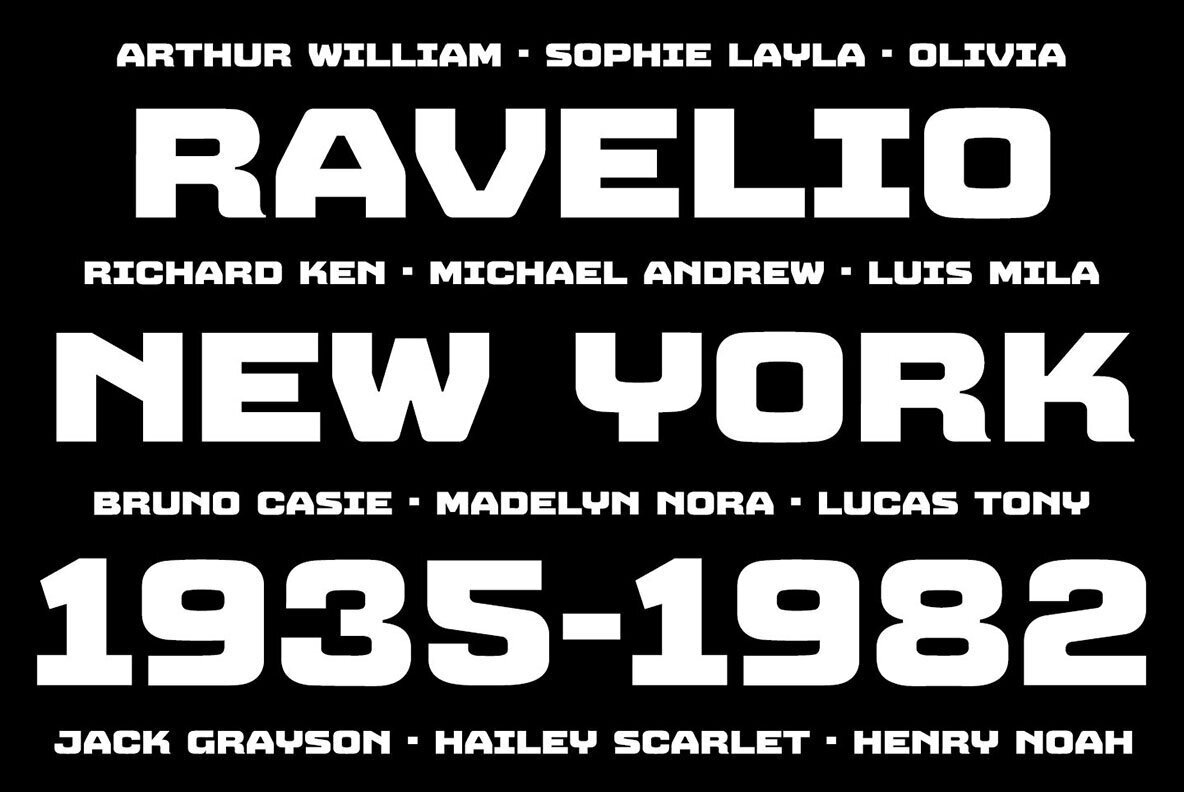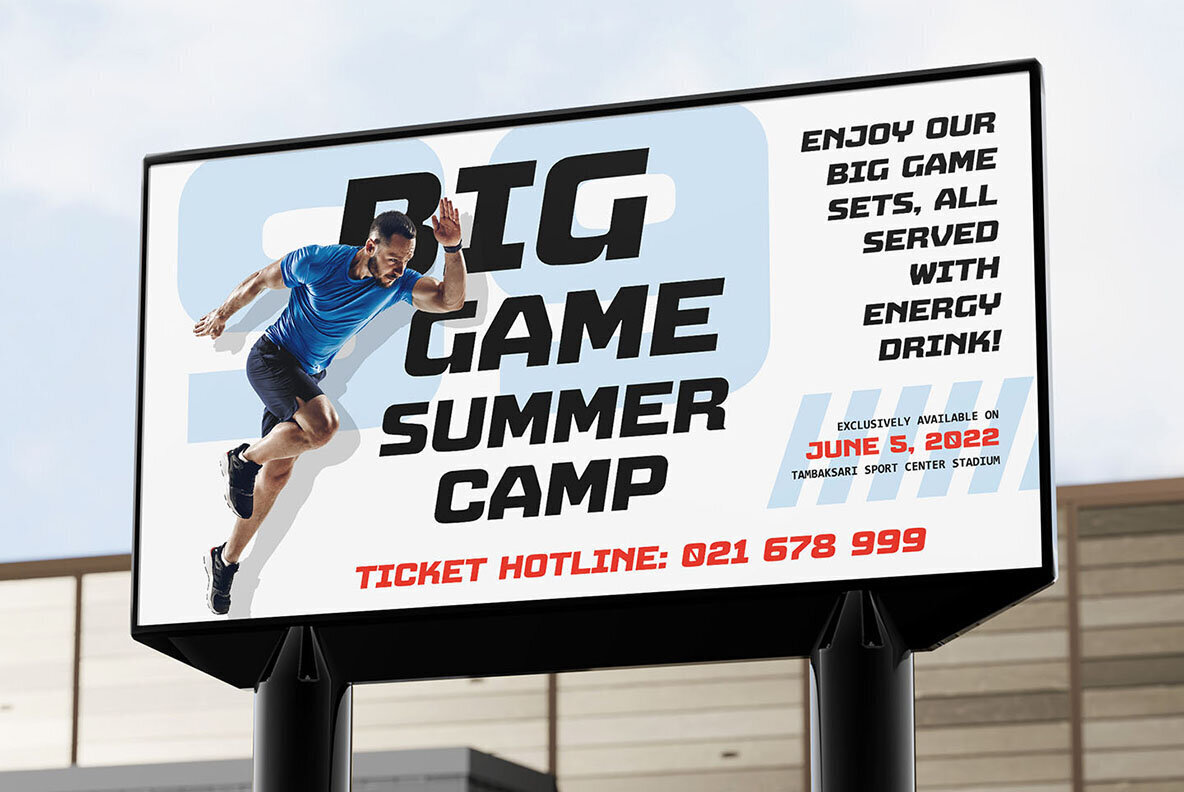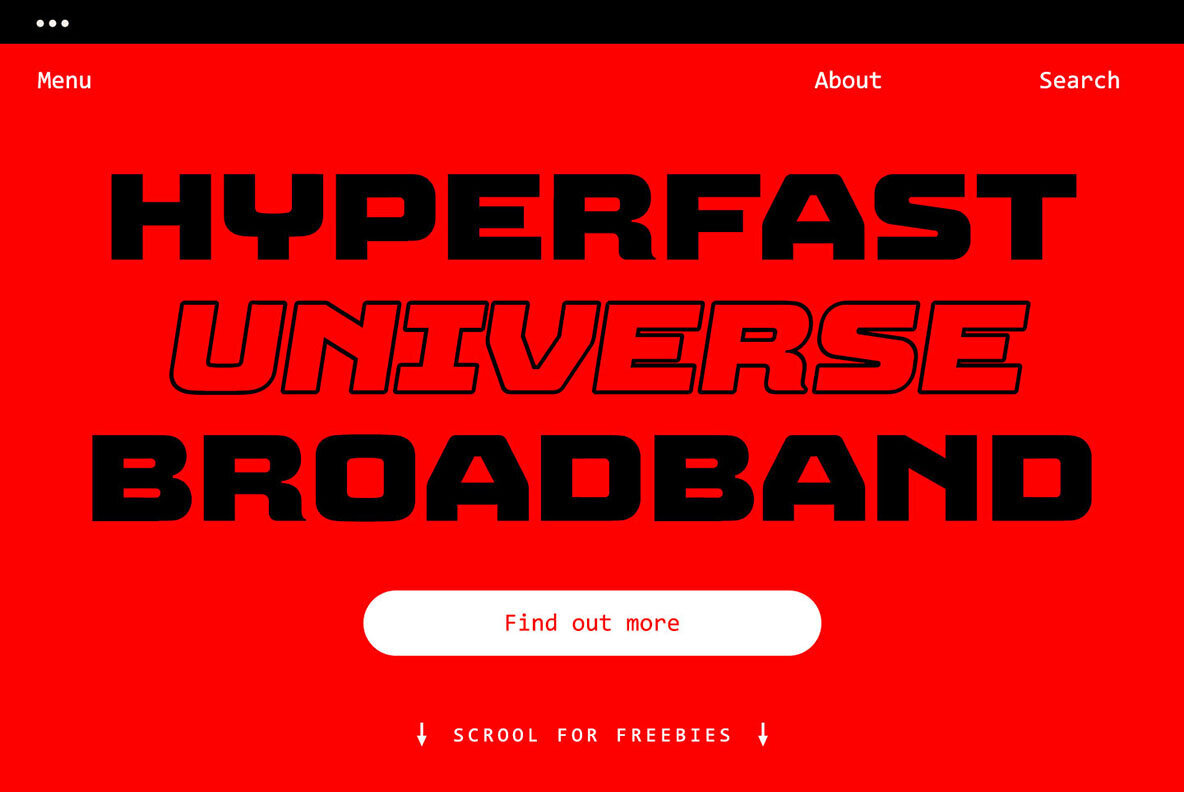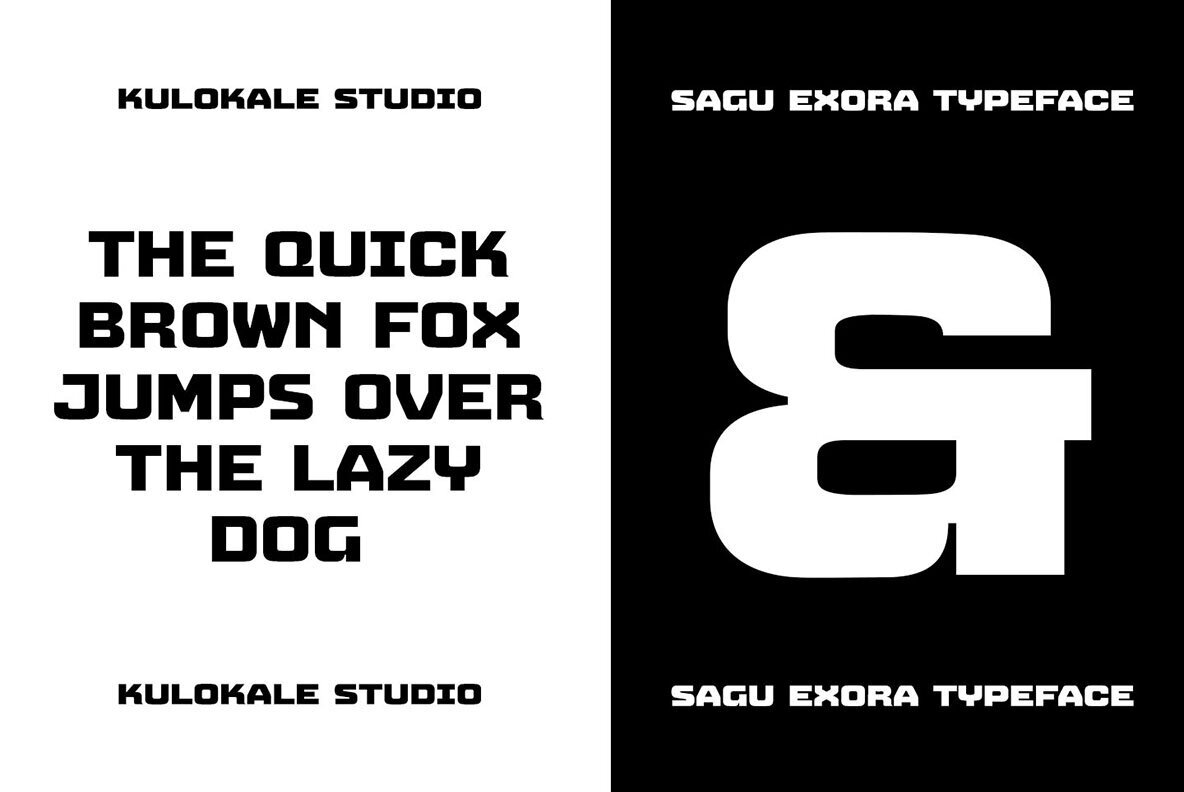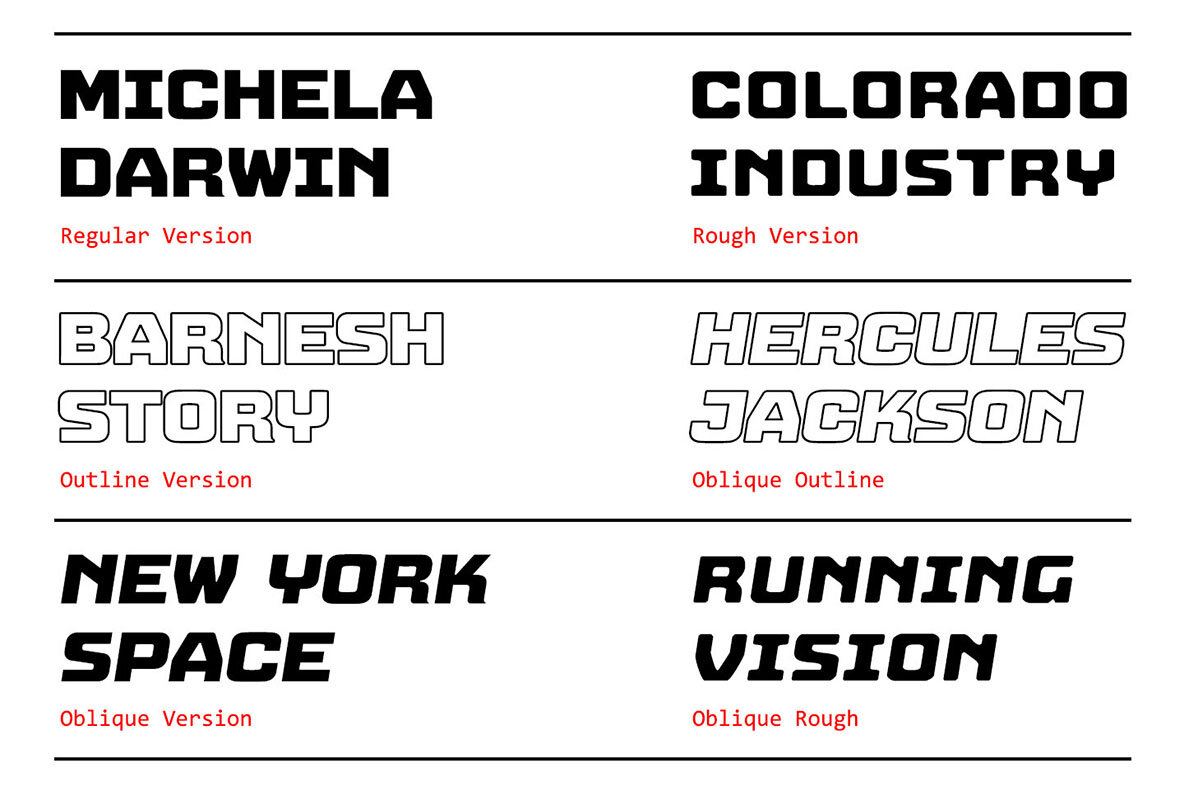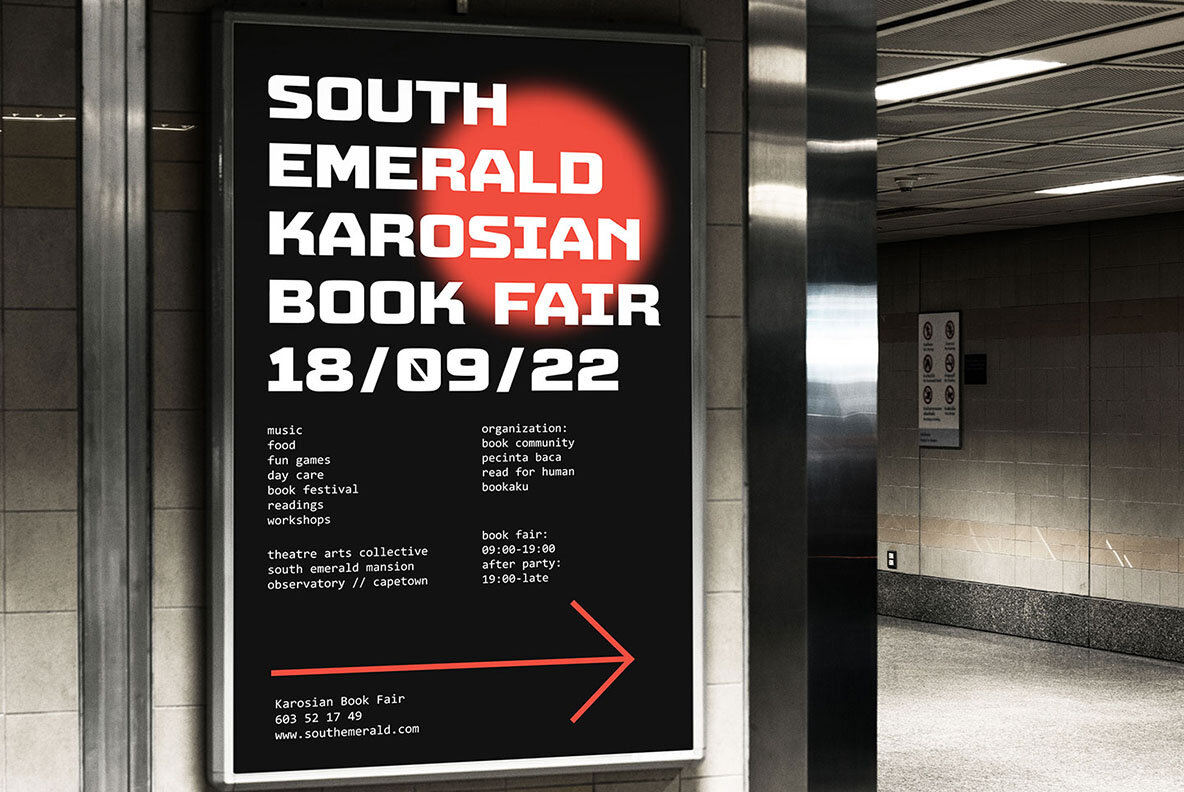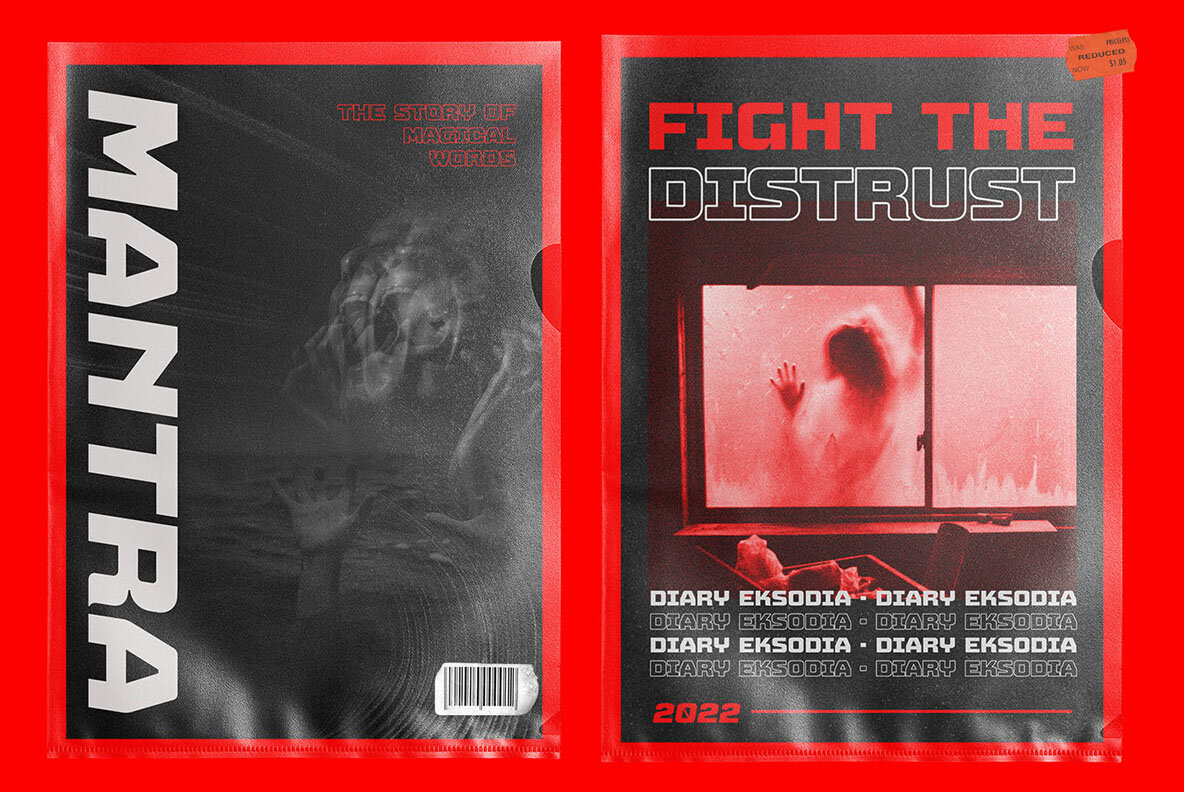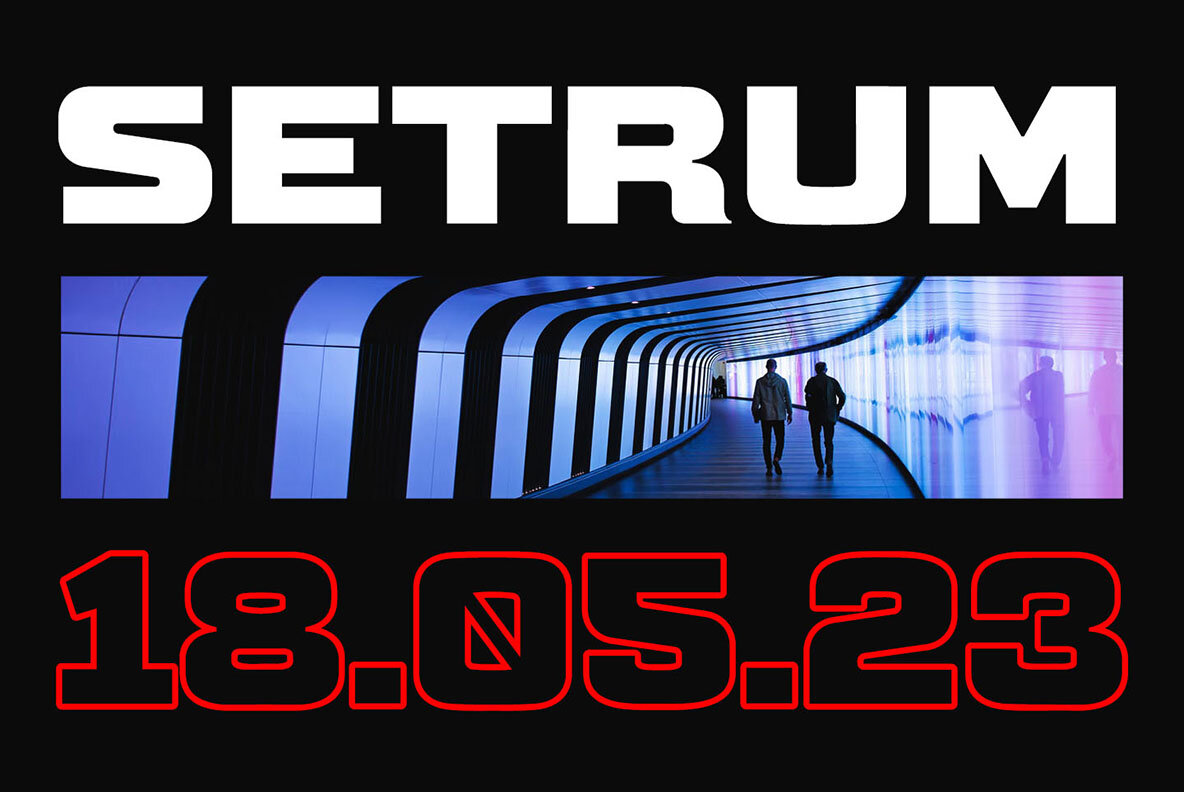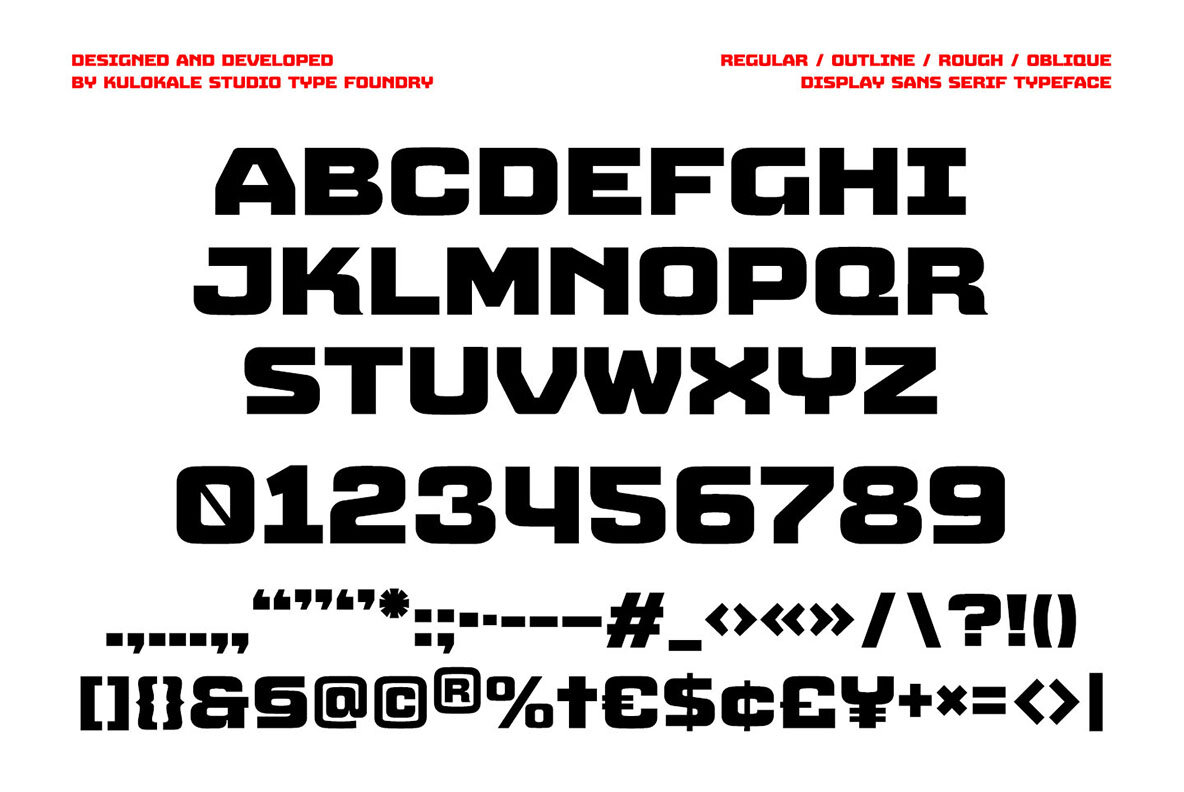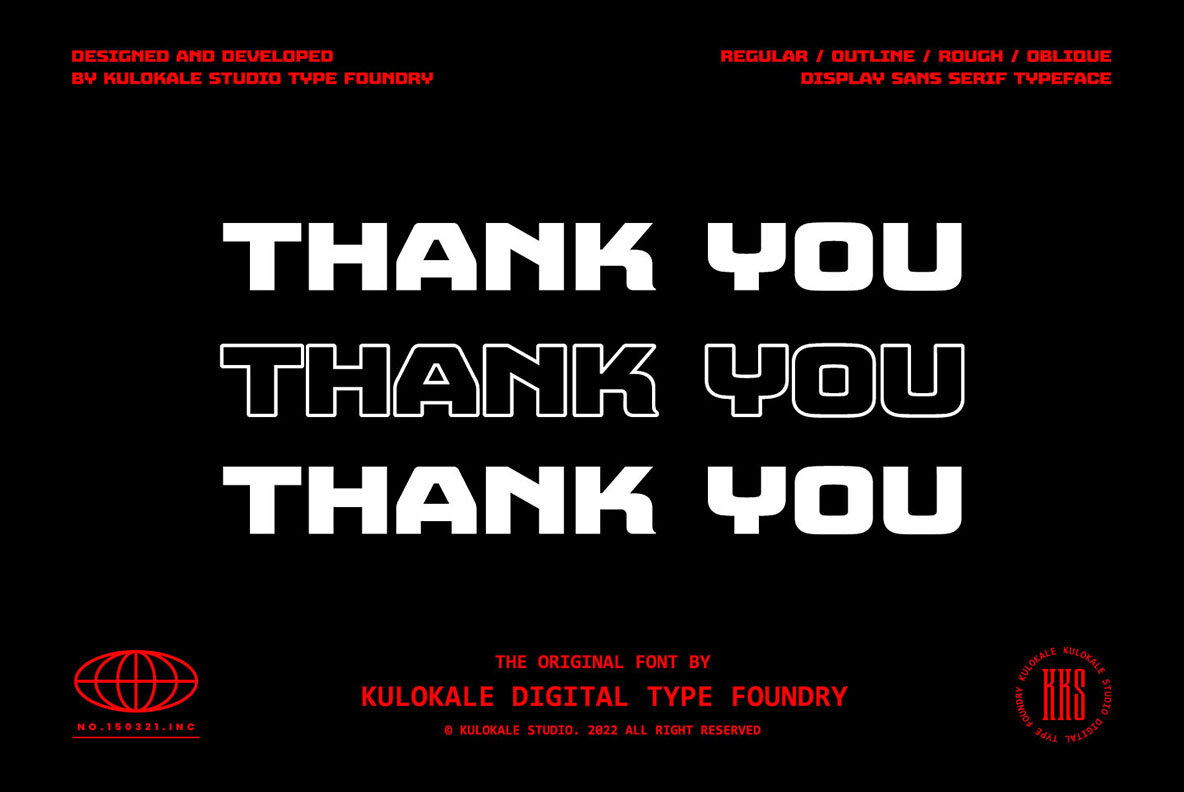
Sagu Exora Font
Sagu Exora Regular
Sagu Exora Oblique
Sagu Exora Outline
Sagu Exora Oblique Outline
Sagu Exora Rough
Sagu Exora Oblique Rough
Sagu Exora is an sans serif display font, and with a style that is very different from the others.
Sagu Exora is well-suited for posters, social media, headlines, magazine titles, clothing, large print formats - and wherever you want to be seen. Inspired by the style of design that is currently popular, and this is the answer to all the needs of every idea that you will pour in this modern era.